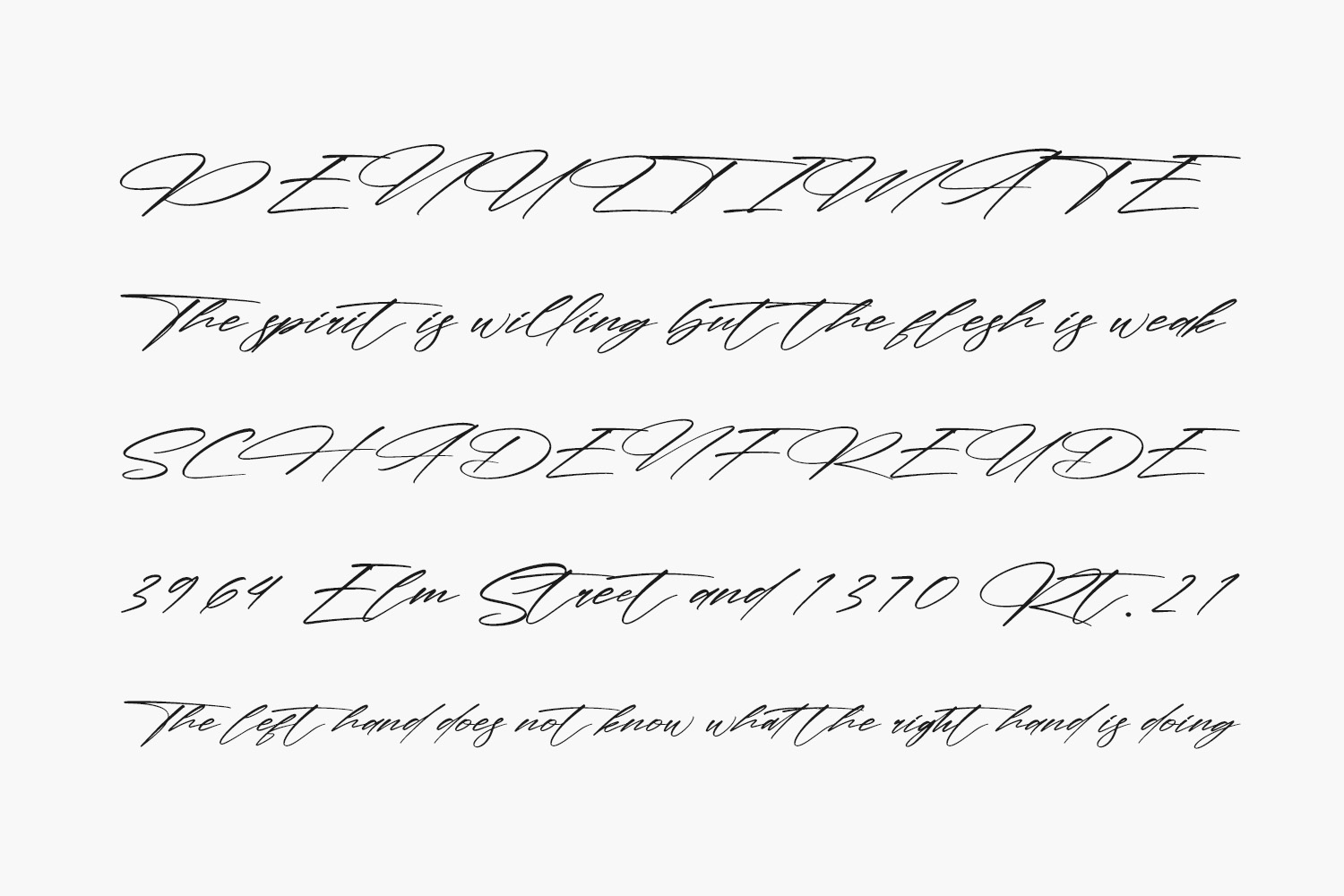
Hunterland Rebalion Free Font, a delightful and enduring handwritten font, stands as the premier option for crafting attention-grabbing logos, building impactful branding, and composing memorable quotes. Hunterland Rebalion Free Font is free for personal use only. Please purchase the full version for commercial use.
Designed by Letterena Studios